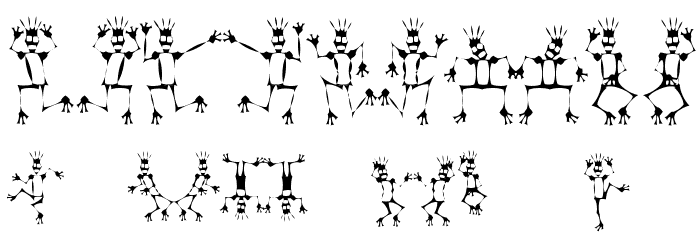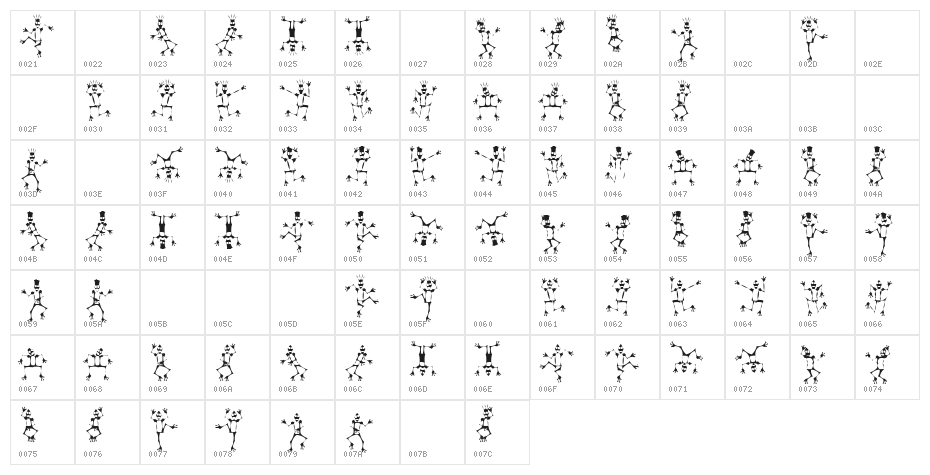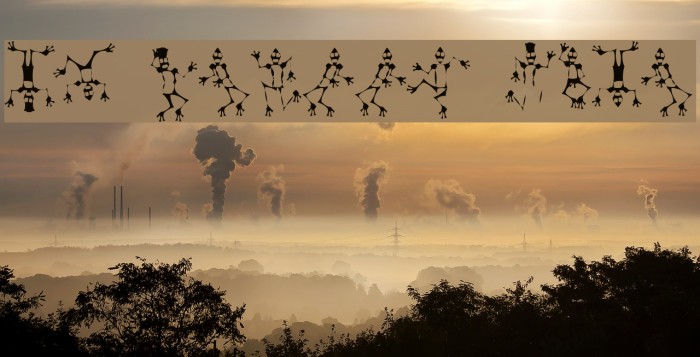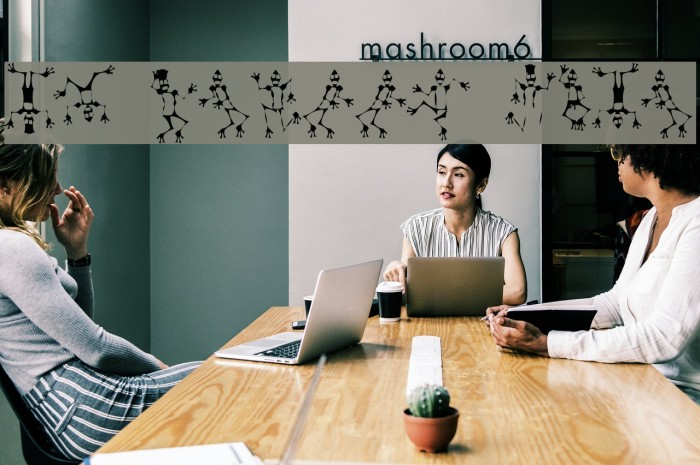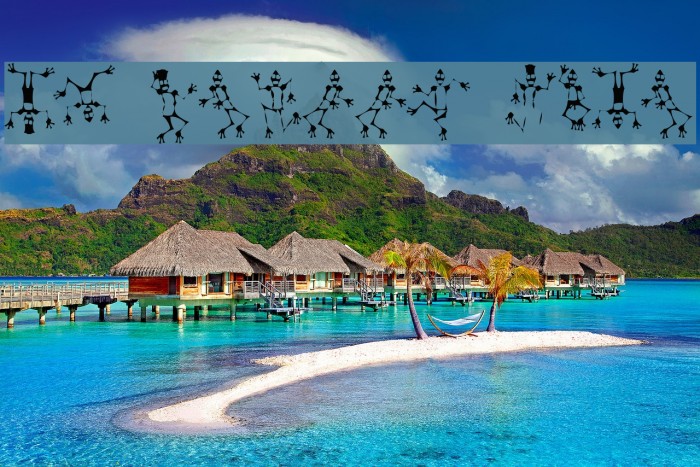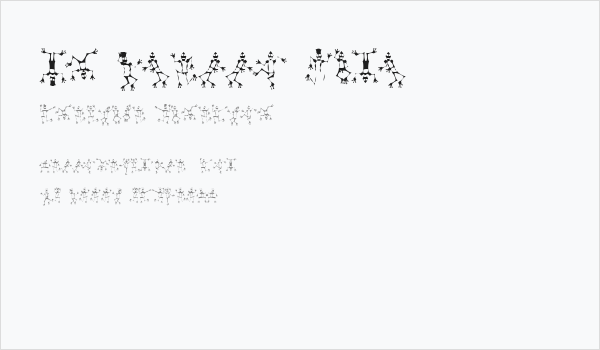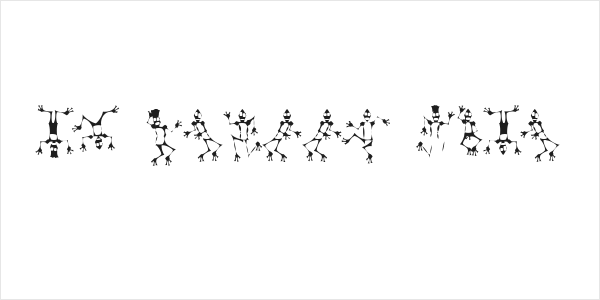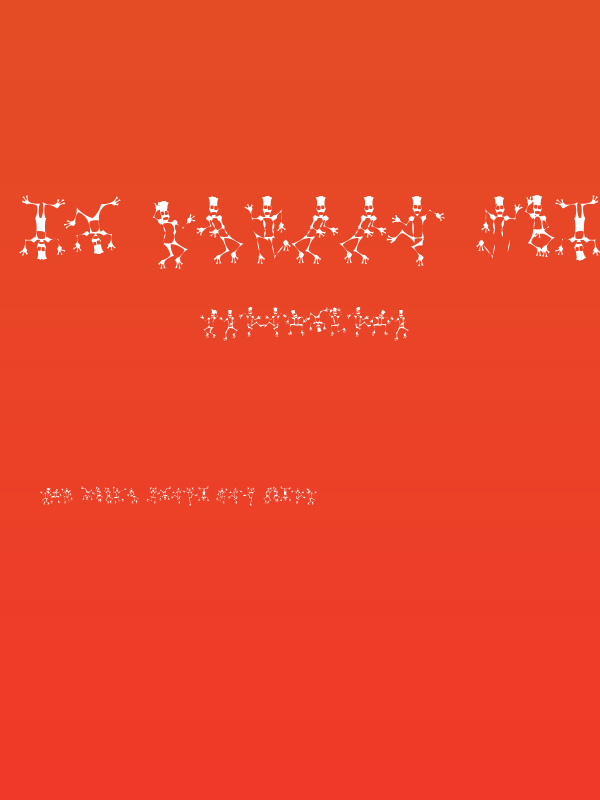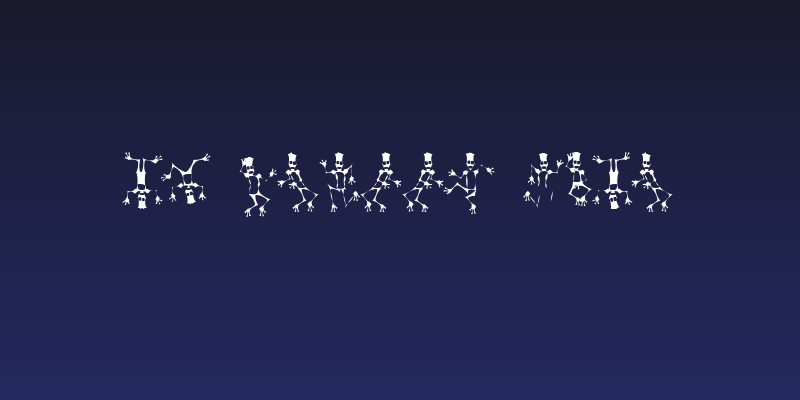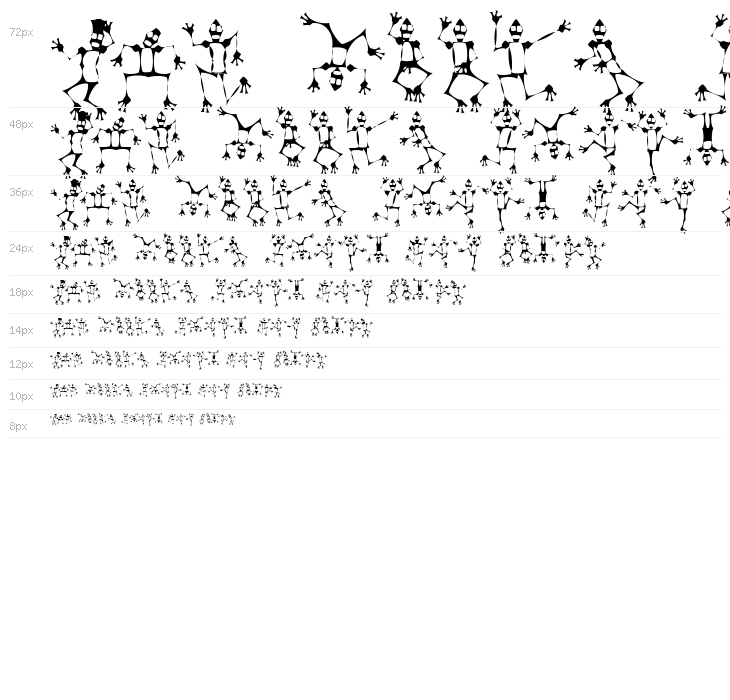
Mr Skello Funk Font
Mr Skello Funk Description
This font is a playful and whimsical design featuring characters that resemble dancing skeletons. Each letter and symbol is creatively formed by these skeletal figures, giving the font a unique and lively appearance. The characters are detailed, with expressive poses and features, such as top hats and exaggerated limbs, adding to the overall quirky and fun style. This font is highly decorative and is best suited for projects that require a bold and eye-catching display. The intricate design of each character suggests a handcrafted feel, making it ideal for Halloween-themed events, party invitations, or any creative project that aims to capture attention with a sense of humor and charm.
Overall StylePlayful, Whimsical, Decorative
Proposed ProjectsIdeal for Halloween invitations, party flyers, children's book covers, and any creative project needing a fun, eye-catching font.